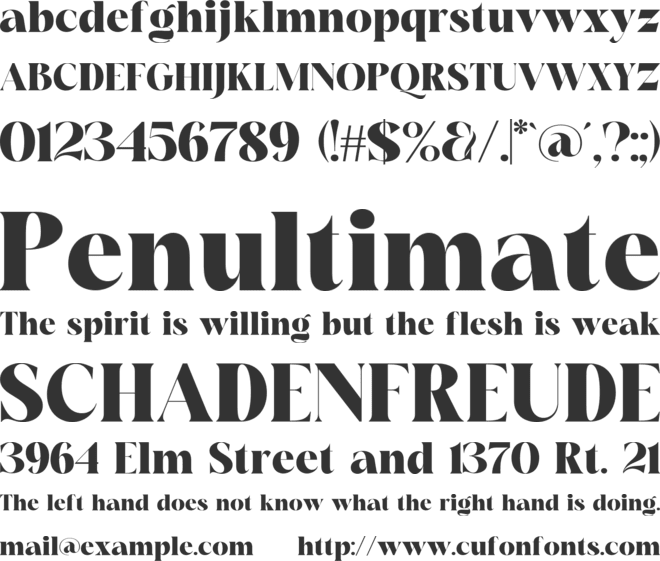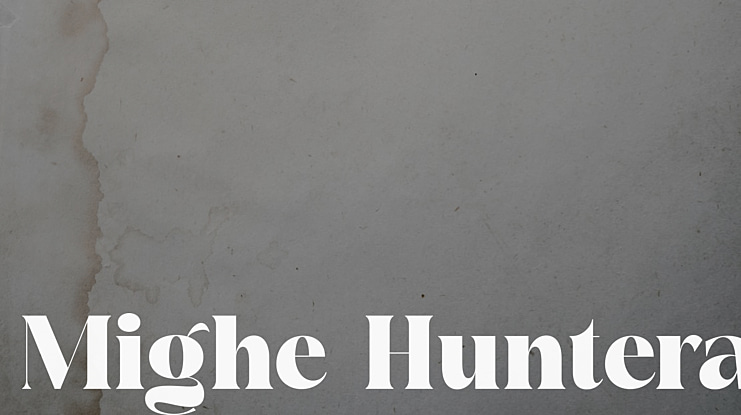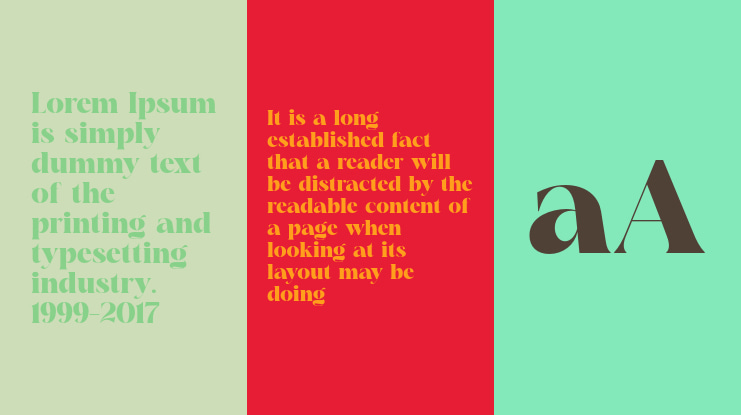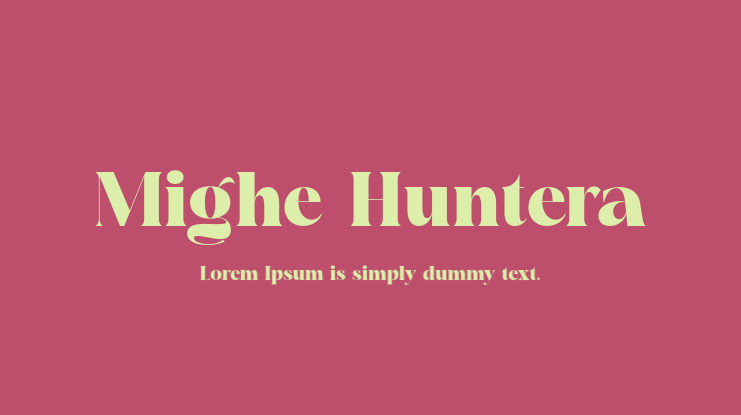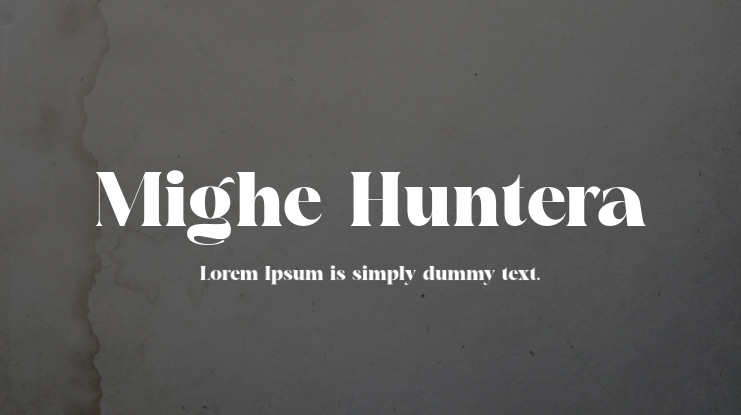
Mighe Huntera Font
Toni Setiawan, Namara Creative
This retro modern serif typeface draws inspiration from the typography of the 1990s, evoking a compelling and enduring nostalgia.